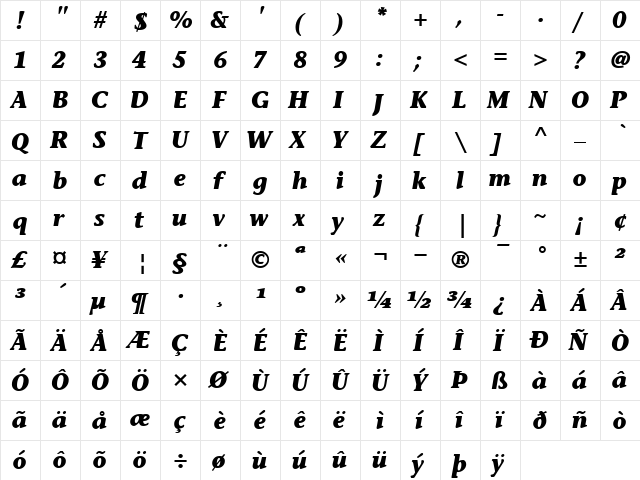
StoneInformal BoldItalic Font Preview
Design Context for StoneInformal Typeface
StoneInformal takes a measured approach to typography — its balanced proportions and neutral character make it a reliable workhorse for both digital and print work. The dynamic lean of this cut emphasises speed and emphasis in any layout. Its bold stroke weight gives it real presence on the page.
Pro Tip: Try StoneInformal for annotation and caption copy alongside an upright companion — the contrast in angle creates a dynamic but ordered typographic system.